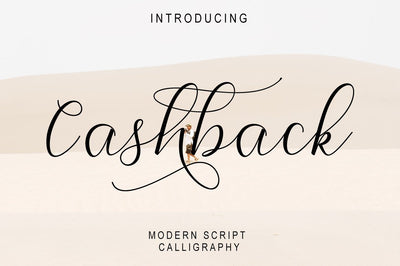
cashback script
Introducing
cashback script modern script with a handmade calligraphy style, decorative characters and a dancing baseline! So beautiful on invitation like greeting cards, branding materials, business cards, quotes, posters, and more!!
cashback script Features :